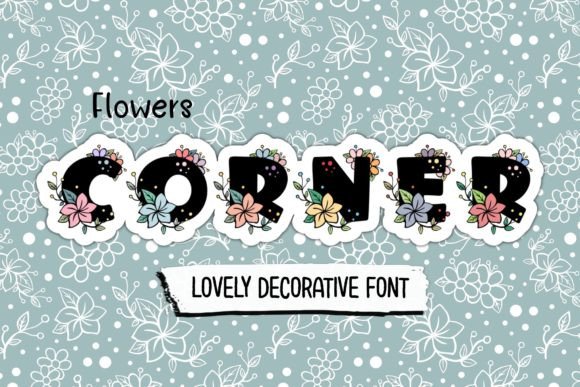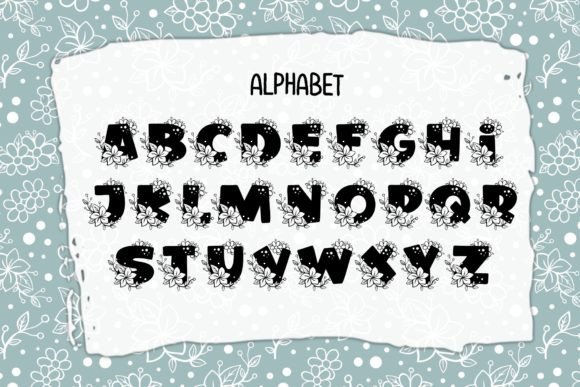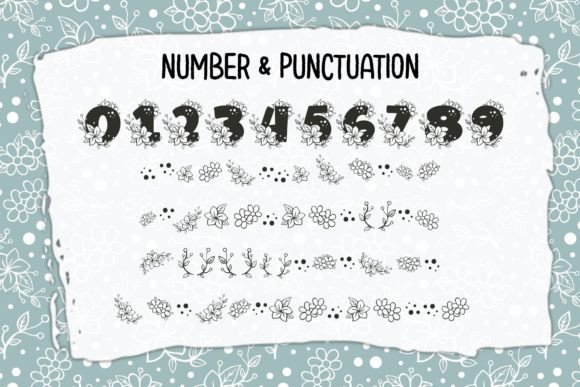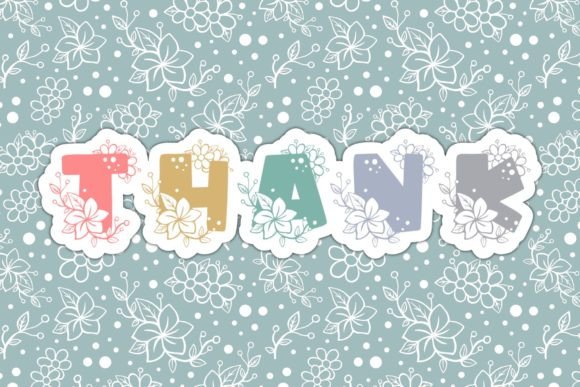
Flowers Corner Font
About the Flowers Corner Font
From logos to headlines, the Flowers Corner Font is the perfect choice for making a lasting impression. Flowers Corner is a lovely decorative font. This font is the perfect fit for all of your logos, branding, social media, crafty DIY projects, and much more!
Flowers Corner’s decorative style excels in headlines, short text blocks on invitations or packaging, and social media graphics where its charm can shine. It’s less suitable for body text or lengthy paragraphs due to its ornate nature, which can hinder readability. Avoid using it in UI contexts or situations requiring high legibility.
The font possesses a friendly, slightly whimsical personality. It works best for brands focusing on crafts, floral design, artisanal products, or events with a romantic or celebratory feel.
Consider pairing Flowers Corner with a clean sans-serif like Open Sans for a balanced contrast, or a classic serif such as Garamond for a more traditional feel. A simple geometric sans-serif could also provide modern counterpoint.